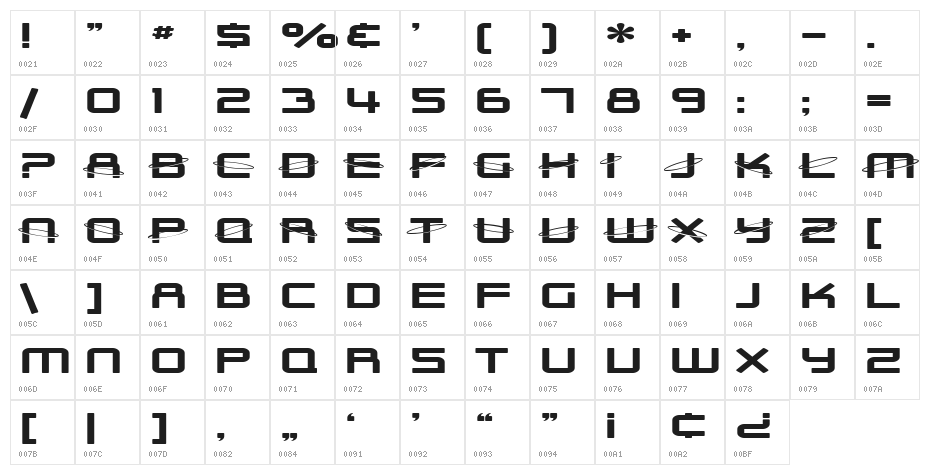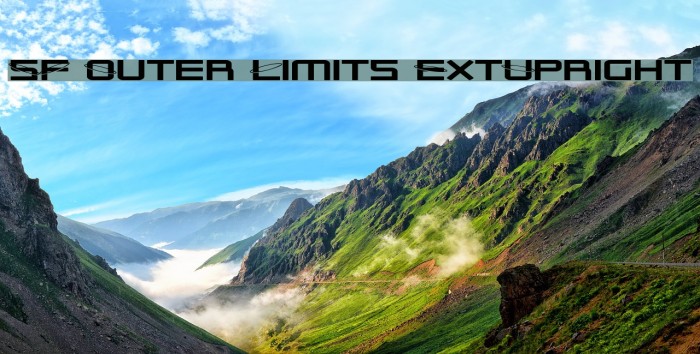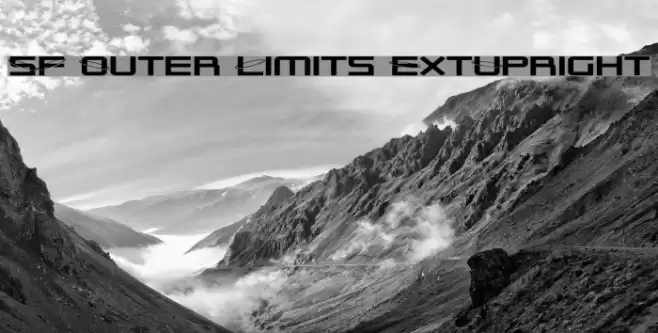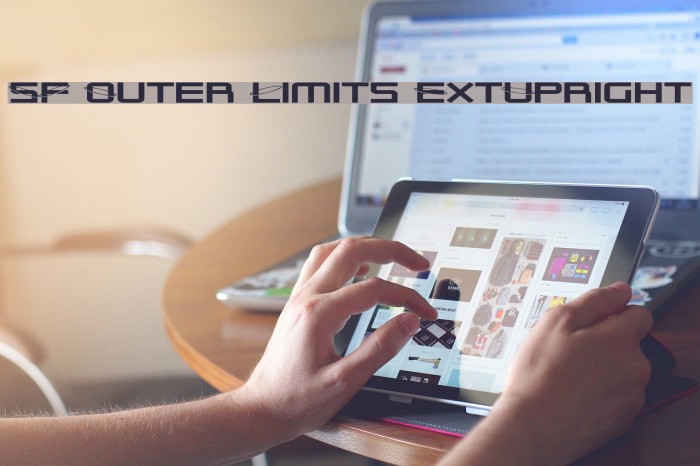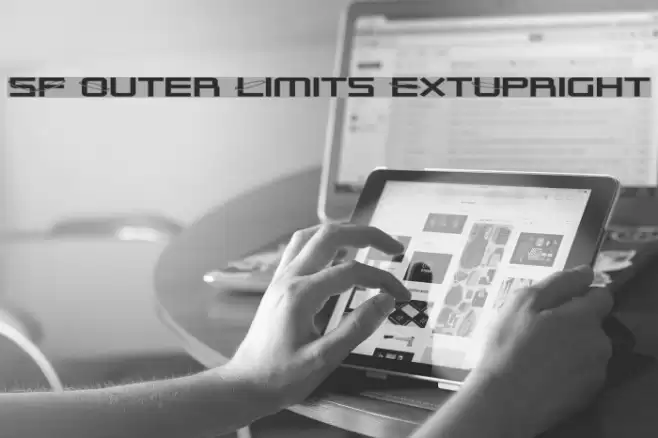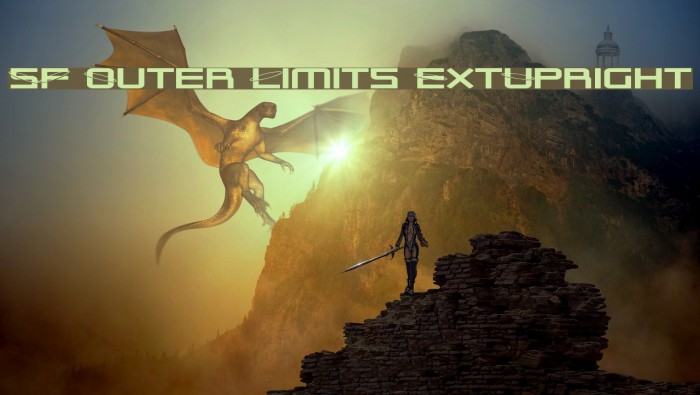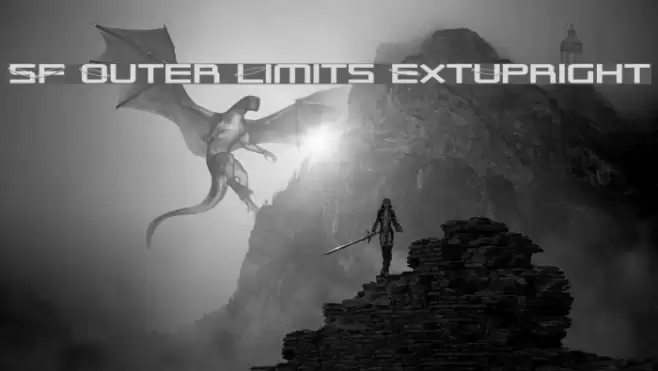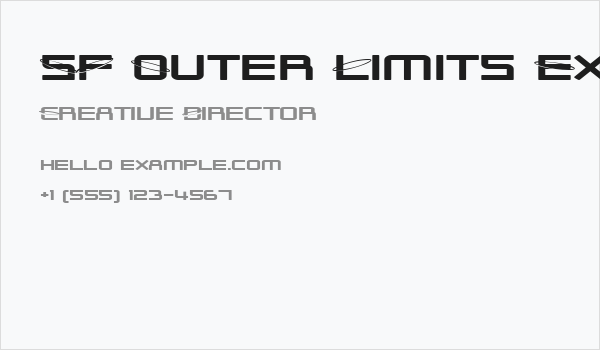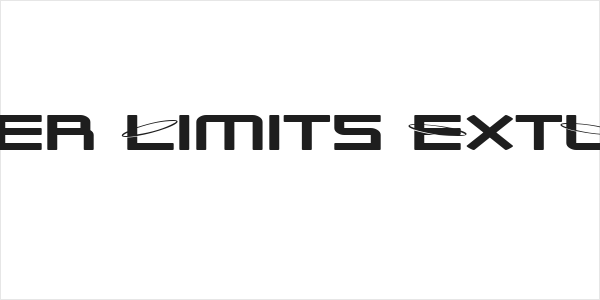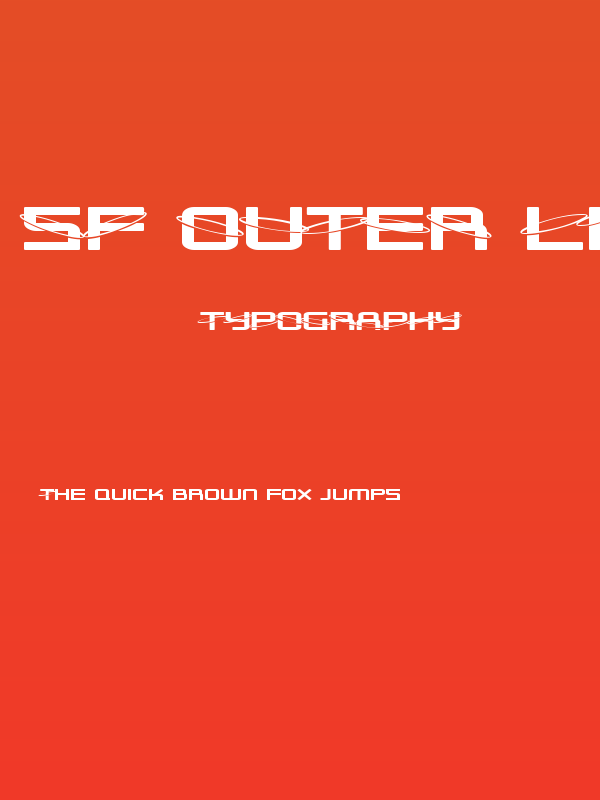
SF Outer Limits ExtUpright Font
SF Outer Limits ExtUpright Description
This font features a futuristic and geometric design with a distinctly modern aesthetic. The characters are constructed with clean, straight lines and sharp angles, giving it a sleek and technical appearance. The uppercase and lowercase letters maintain a consistent height, contributing to a uniform look. The numerals and special characters are designed to match the overall style, ensuring cohesion across all glyphs. Its extended upright stance adds a unique touch, making it stand out in digital and print applications.